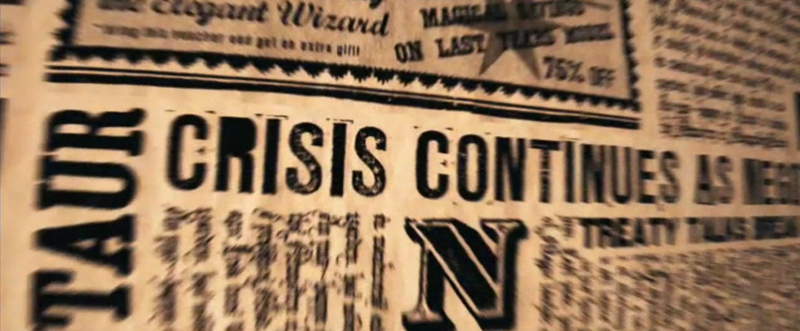
Preview and download LL Rubber Grotesque Font. Created by Markus Schröppel in Fancy Eroded styles with Free for personal use license.
Font name: | LL Rubber Grotesque |
Author: | Markus Schröppel |
Font Demo available only on the website Dafont. No other site is authorized to distribute this font. Full font available in: http://www.revolge.com/product/ll-rubber-grotesque/ More info send email to: markus@mschroeppel.de Experimental Headlinefont by original rubber stamps I have digitized 1997 with URW Linus and Ikarus. Remasterd: Alt-f (Macintosh) / ALT+0131 (WINDOWS) a new exclusive f Also as Web Open Font Format (WOFF), Embedded OpenType (EOT) and SVG WebFont Format for your webpage. Second file is the version of ›LL Rubber Grotesque‹ used in the »Harry Potter« movies: e.g.: headline in the »Daily Prophet« or the Wanted posters of Amycus Carrow, Fenrir Greyback and Bellatrix Lestrange in »Harry Potter and the Half-Blood Prince«. We are still working on a Cyrillic Version, but it takes time. Sideproject: cyrillic eroded font LLLisa (ЛЛЛиса́) coming soon. |